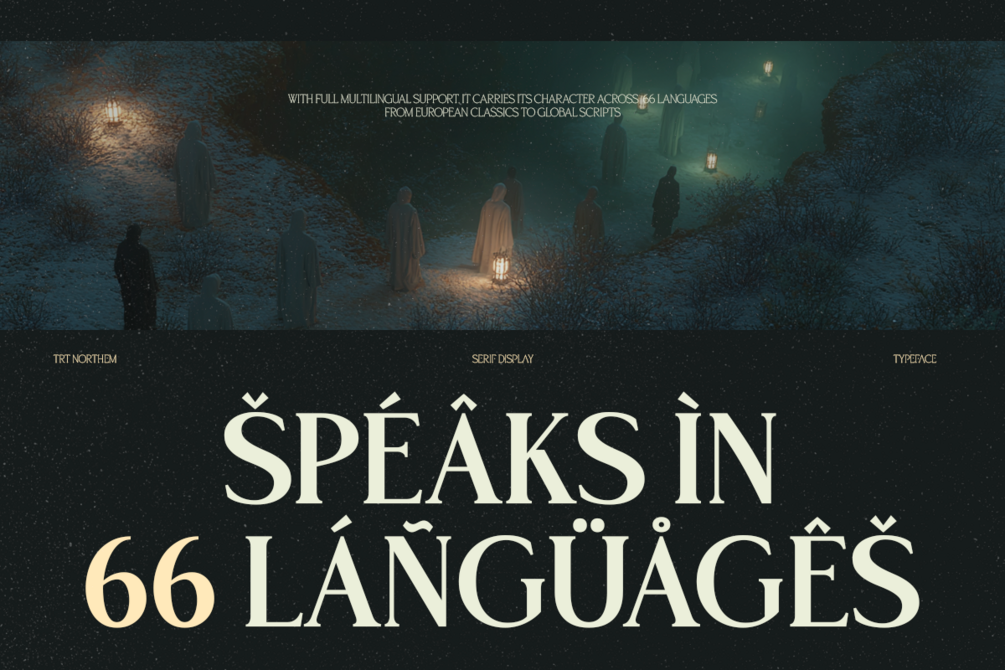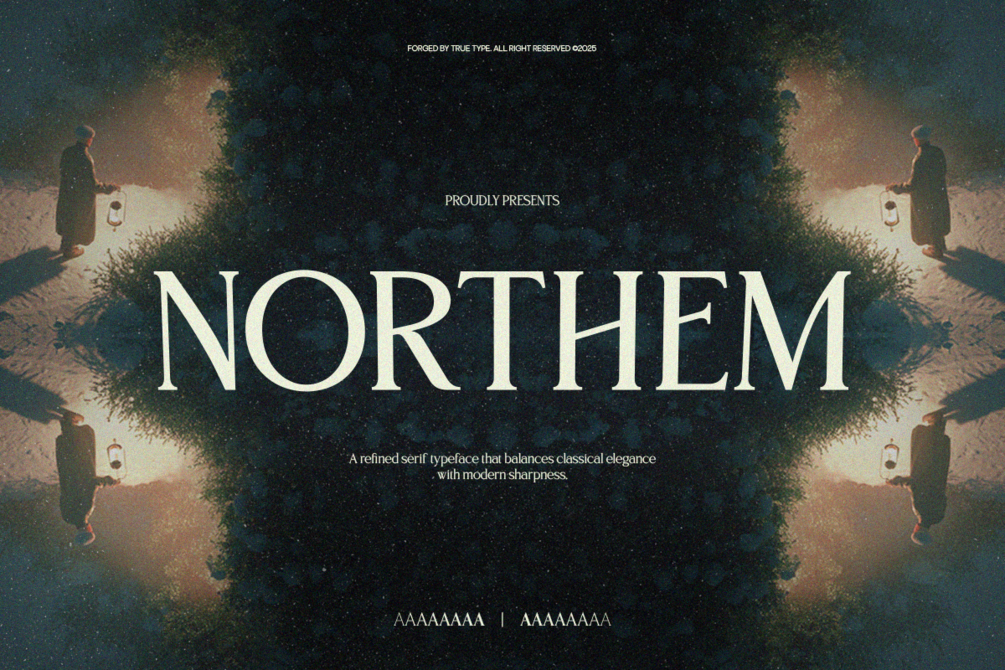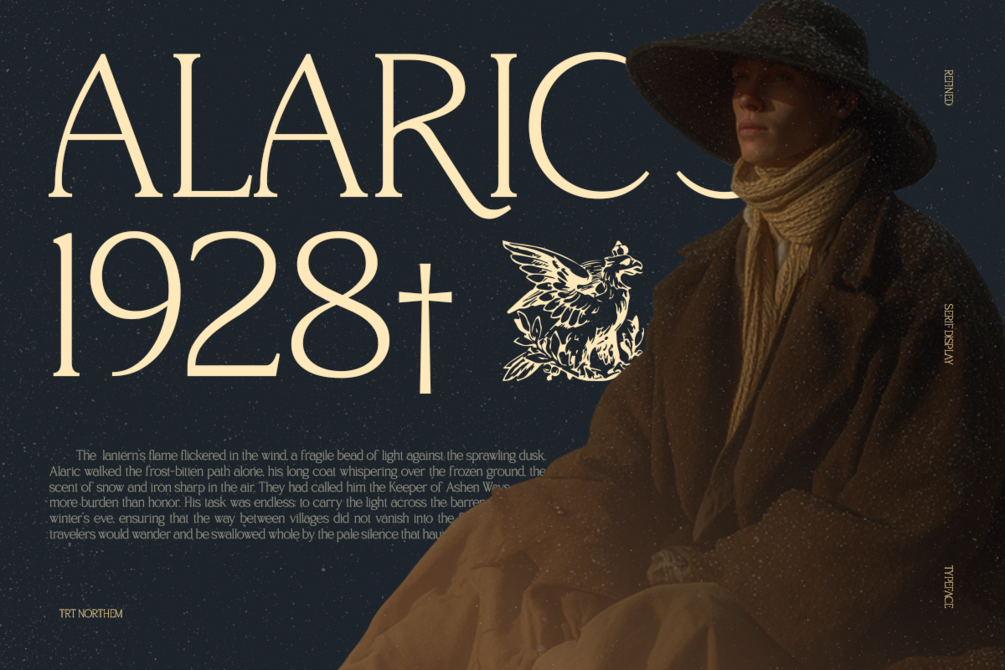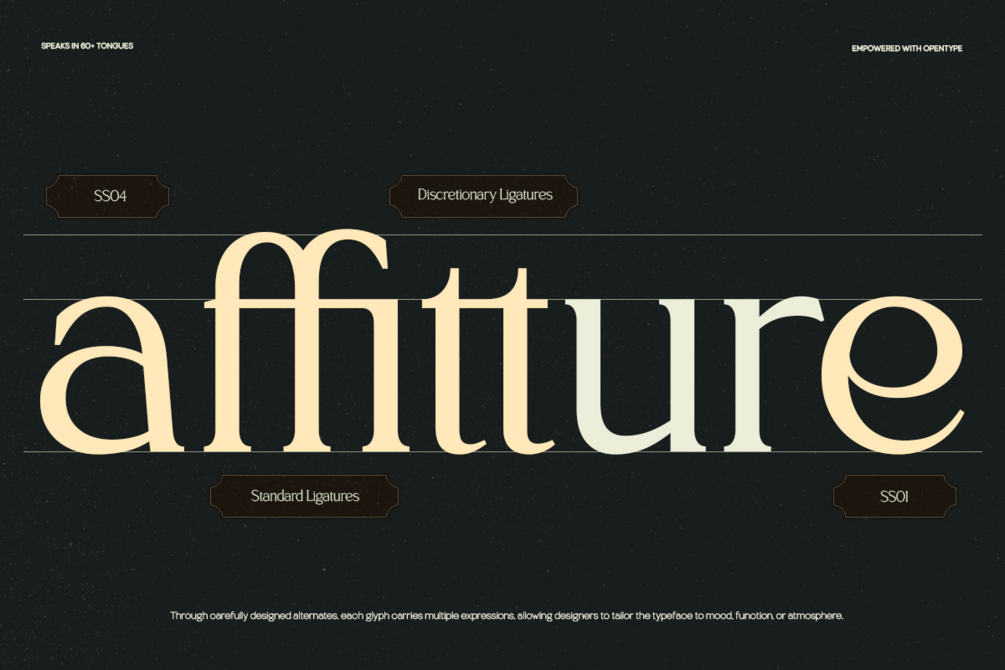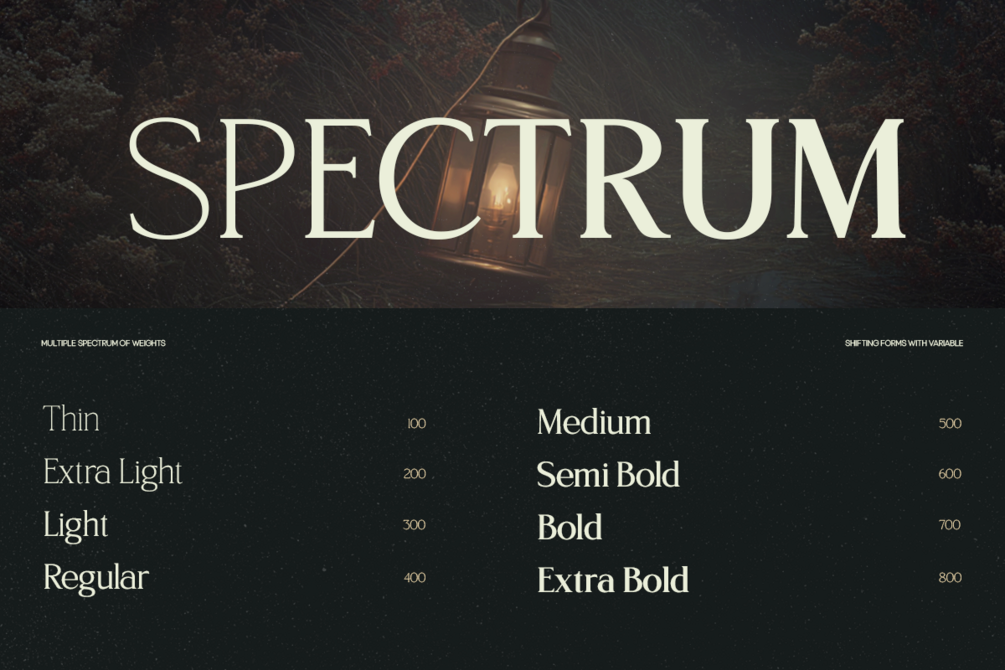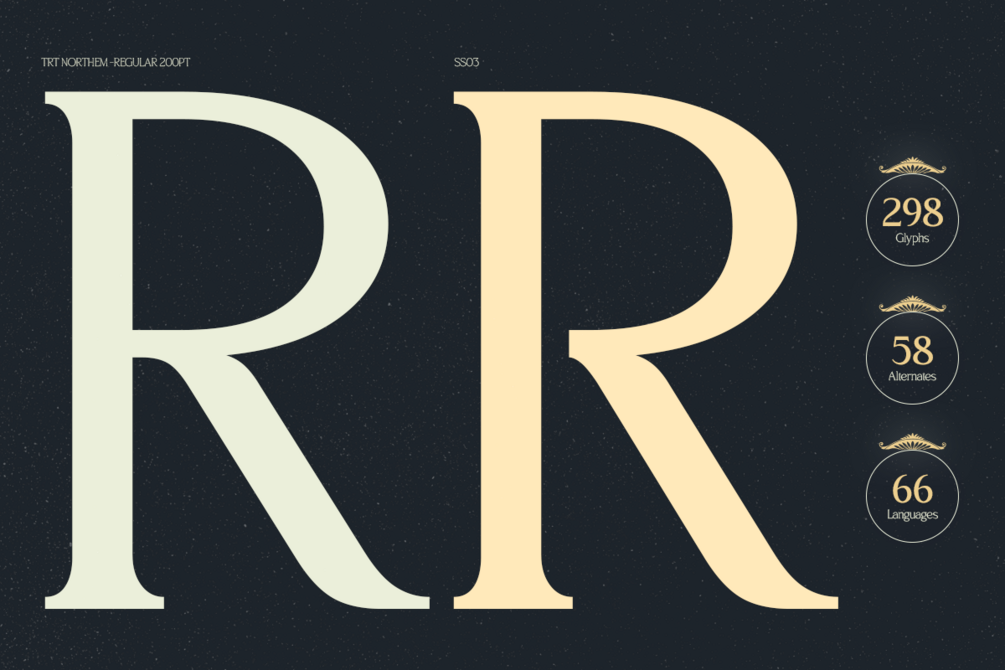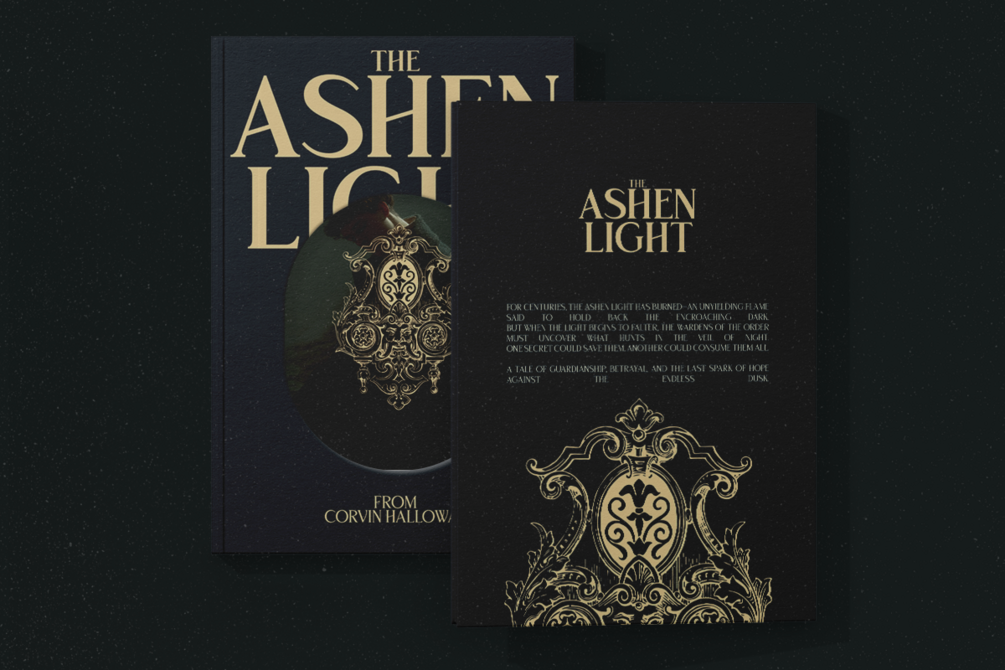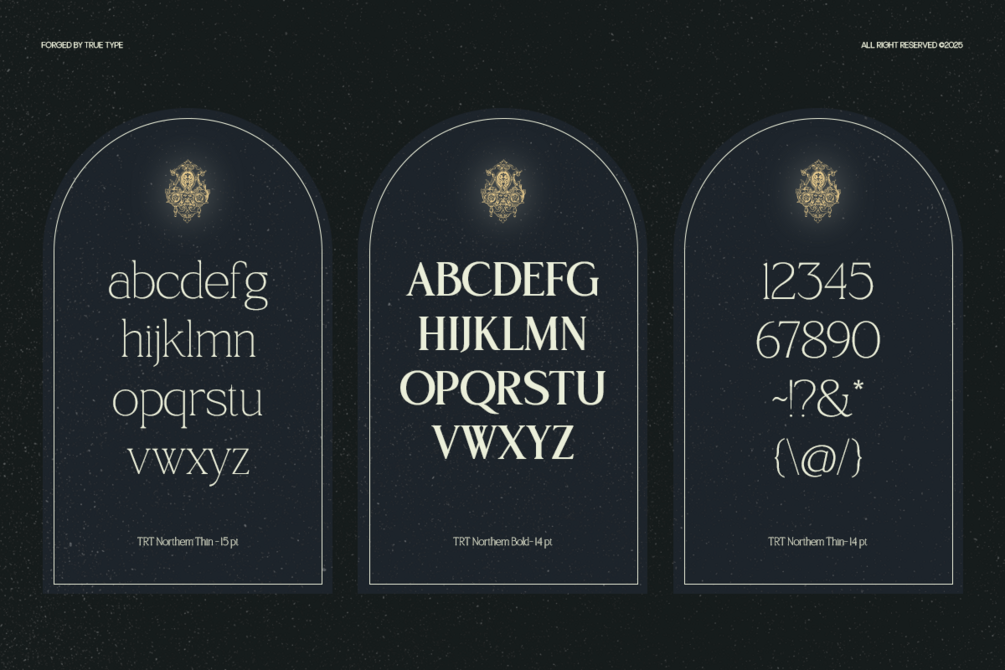
TT Northem – Elegant Serif Font Family
TT Northem is an elegant serif font family crafted to bring sophistication and timeless beauty to your designs. With refined proportions and smooth contrast, it blends classic charm with modern functionality.
Designed for versatility, TT Northem works gracefully across editorial layouts, branding systems, book covers, packaging, and digital platforms. Its calm character and carefully tuned details offer both readability and elegance — ideal for projects that require a strong yet graceful typographic voice.
TT Northem provides a harmonious balance between structure and softness, making it suitable for both display and text sizes. Whether you're designing a luxury brand, a high-end magazine, or a professional presentation, TT Northem delivers clarity and poise to elevate your visual storytelling.
All Glyphs
+ 250 Glyphs
Multilingual
Supported
Alternates & Ligatures
40 Glyphs